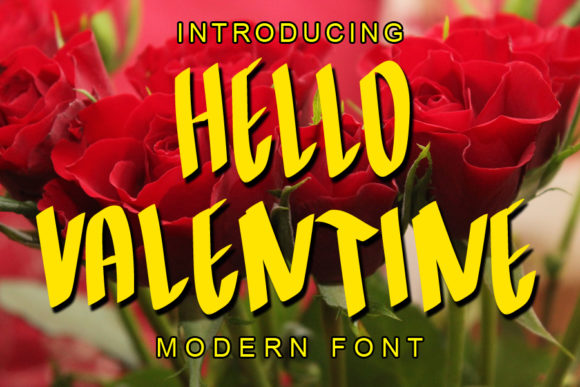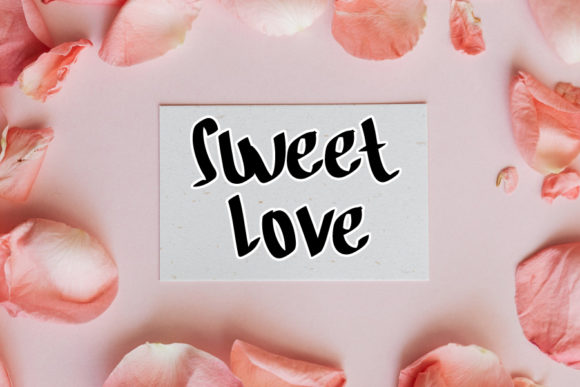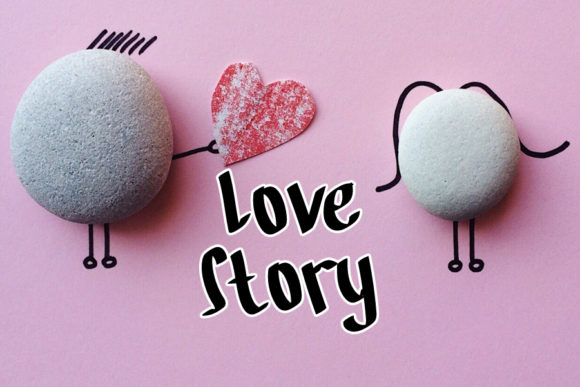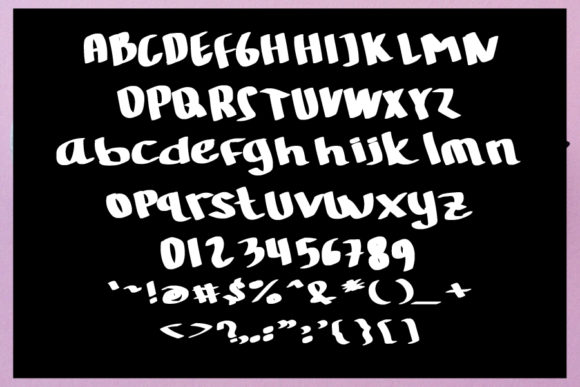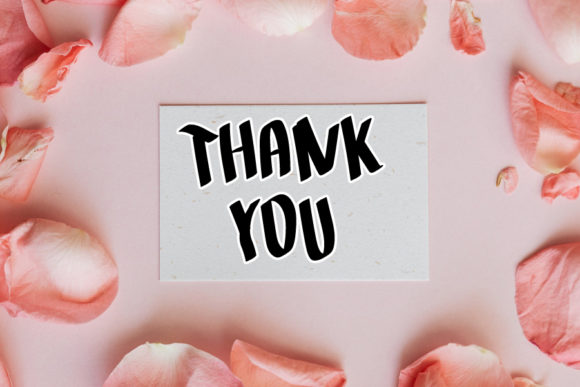
HomeScript FontsHello Valentine Font Script Fonts Hello Valentine Font FacebookXPinterestWhatsApp 1 of 5 Hello Valentine Font Poster 2... Hello Valentine Font Poster 3... Hello Valentine Font Poster 4... Hello Valentine Font Poster 5... About Hello Valentine Font Hello Valentine is a bold and fun handwritten font. Use it to brighten up any of your design projects! DOWNLOAD NOW People also explored Sublimation Font Pillish Duo Font Camelia Stylish Signature Font Spooky Halloween Font Nibble Font Powder Script Paper Work Font Candyland Font White and Black Campfire Mug Mockup 303 0 TagsHello Valentine Font Previous articleCold February FontNext articleSweet February Font LEAVE A REPLY Cancel reply Comment: Please enter your comment! Name:* Please enter your name here Email:* You have entered an incorrect email address! Please enter your email address here Website: Save my name, email, and website in this browser for the next time I comment. Personal Use Free Sweet Cake Personal Use Free Read more about this font Hello Sarrah Personal Use Free Read more about this font Madison Script Personal Use Free Read more about this font Manhattan Personal Use Free Read more about this font BLOG Modern Sans-Serif Fonts That Brands Love in 2025 In 2025, modern sans-serif fonts remain a top choice for brands looking to project clarity, professionalism, and... How to Cut Any Font on Cricut: Convert a Font to SVG (Free) The 10 Best Handwriting Fonts to Add Personality to Your Designs Using Fonts in Digital Marketing: Tips to Strengthen Your Brand Identity